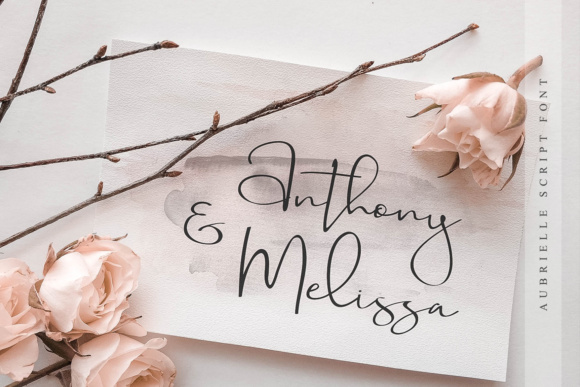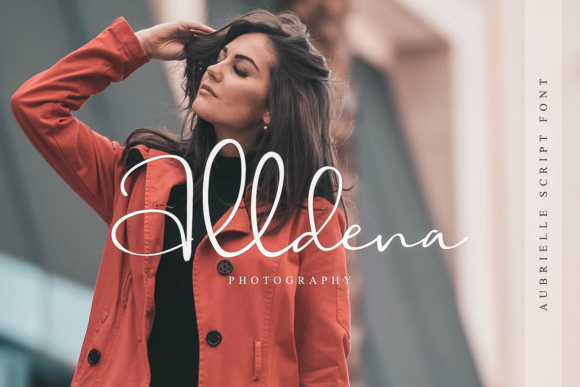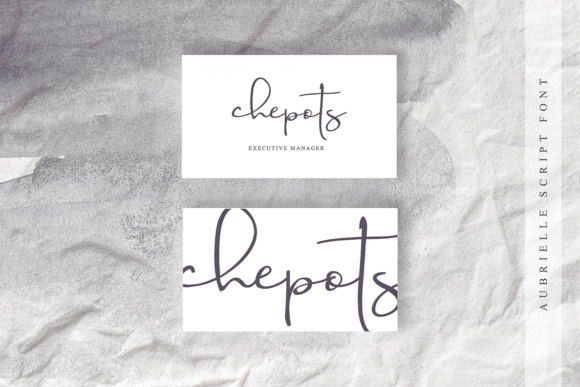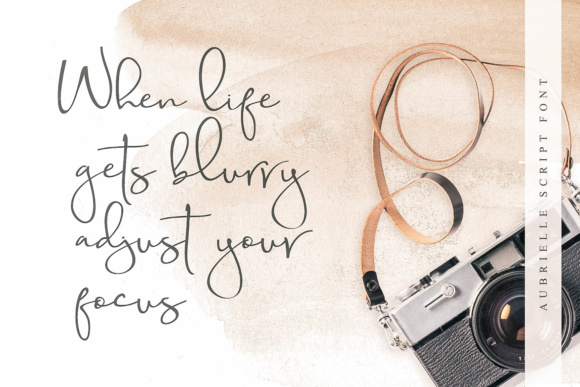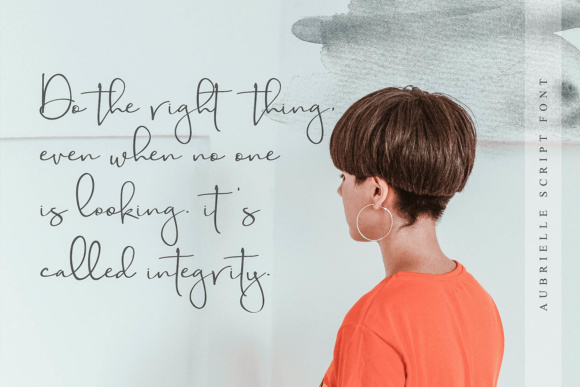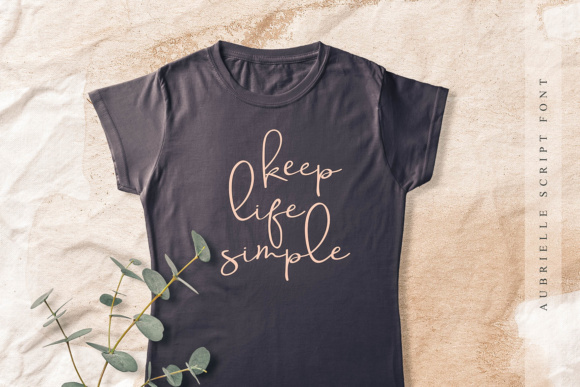
The Designer’s Delight: A Deep Dive into the Aubrielle Font
I’ll never forget the time I was working on a logo design project for a boutique client, and I just couldn’t seem to find the perfect font. I had a vision of something elegant, yet relaxed; bold, yet approachable. That’s when I stumbled upon the Aubrielle font, and it was love at first sight! 💕 In this article, I’ll share my experience with this stunning handwritten script font, and explore its features, uses, and alternatives.
An Honest Review of Aubrielle
- 💥 **Instant Hand-Lettered Look**: Aubrielle gives my designs a beautifully hand-lettered feel in an instant.
- 🎨 **Versatility**: This font is perfect for logotypes, branding, and any project that needs a bold focal point.
- 👍 **Easy to Read**: Despite its elegant feel, Aubrielle remains highly legible, even at smaller sizes.
- 🤩 **OpenType Features**: The font comes with a range of OpenType features, including glyphs and stylistic alternates, which allow for endless creativity.
While Aubrielle is an amazing font, there are a few things to keep in mind:
- 🤔 **Limited Use in Body Text**: Due to its elegant, cursive nature, Aubrielle might not be the best choice for lengthy body text.
- ⚠️ **Kerning Issues**: As with any font, some manual kerning might be required to achieve perfect letter spacing.
Exploring Alternatives to Aubrielle
If you’re looking for similar fonts or want to explore other options, here are a few alternatives:
- Kaitlynn: A beautiful, modern script font with a similar feel to Aubrielle. Use it for branding, logotypes, and packaging design.
- Alex Brush: A elegant, handwritten font with a more whimsical feel. Perfect for creative projects, invitations, and greeting cards.
- Pacifico: A stunning, modern script font with a relaxed, beachy vibe. Ideal for branding, advertising, and editorial design.
- Carolyna Pro: A sophisticated, elegant script font with a classic feel. Suitable for luxury branding, high-end advertising, and formal events.
The Story Behind Aubrielle
Aubrielle was designed with the intention of creating a beautiful, handwritten script font that captures the essence of elegant, yet relaxed typography. Inspired by the flowing lines of calligraphy, Aubrielle’s creator aimed to craft a font that would bring a touch of sophistication to any design project. Whether used for logotypes, branding, or creative projects, Aubrielle is sure to make a statement.
Q: What type of projects is Aubrielle best suited for?
A: Aubrielle is ideal for logotypes, branding, packaging design, and any project that requires a bold, elegant focal point.
Q: Does Aubrielle come with OpenType features?
A: Yes, Aubrielle includes a range of OpenType features, including glyphs and stylistic alternates, which allow for increased creativity and flexibility.
Q: Can I use Aubrielle in digital and print projects?
A: Absolutely! Aubrielle is versatile and can be used in both digital and print projects, from social media graphics to business cards and brochures.